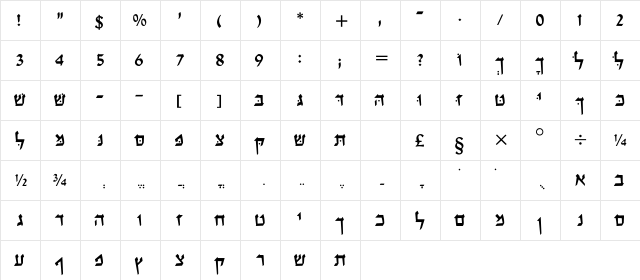
Ophir Regular
Design Context for Ophir Typeface
Ophir takes a measured approach to typography — its balanced proportions and neutral character make it a reliable workhorse for both digital and print work.